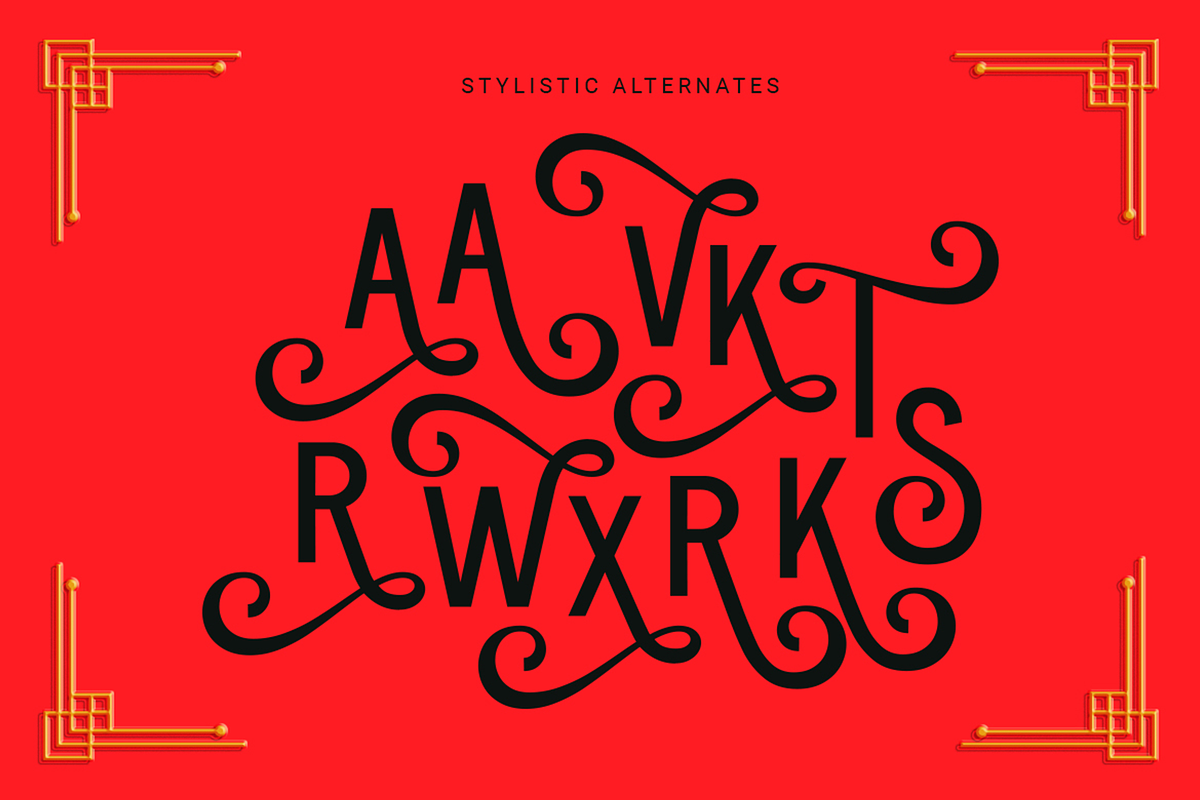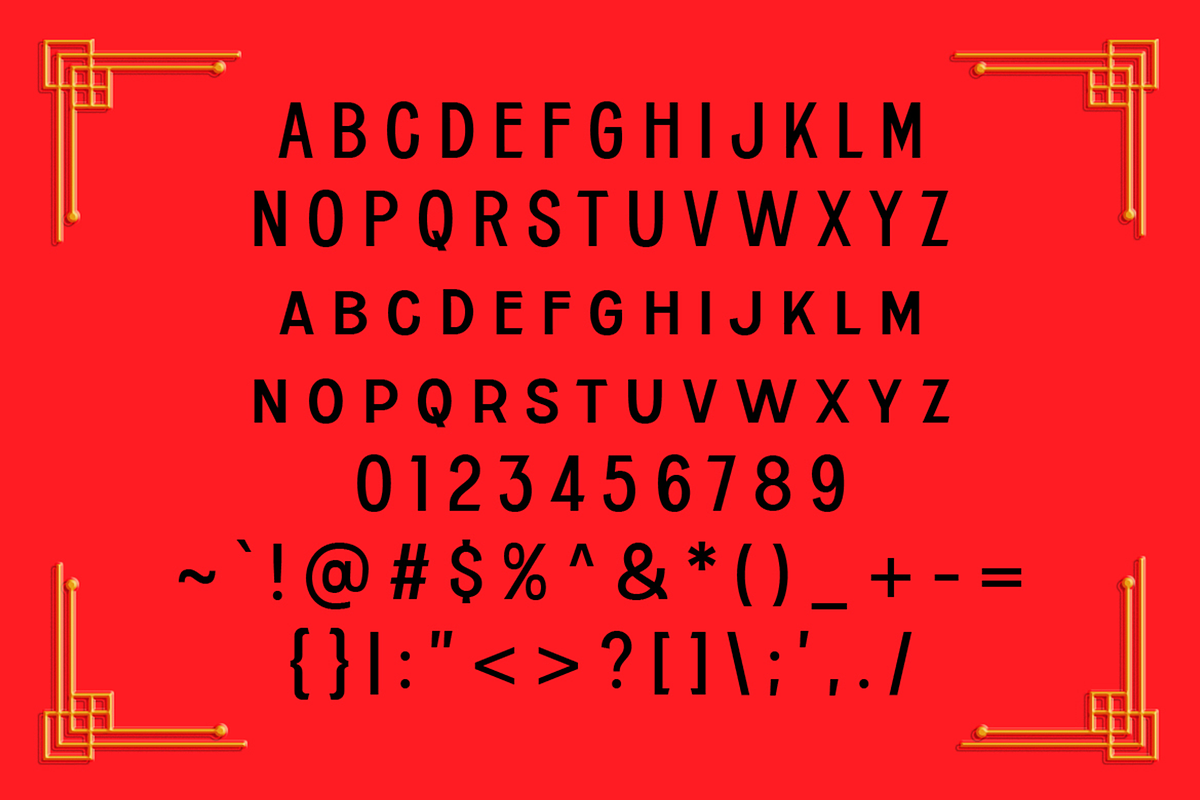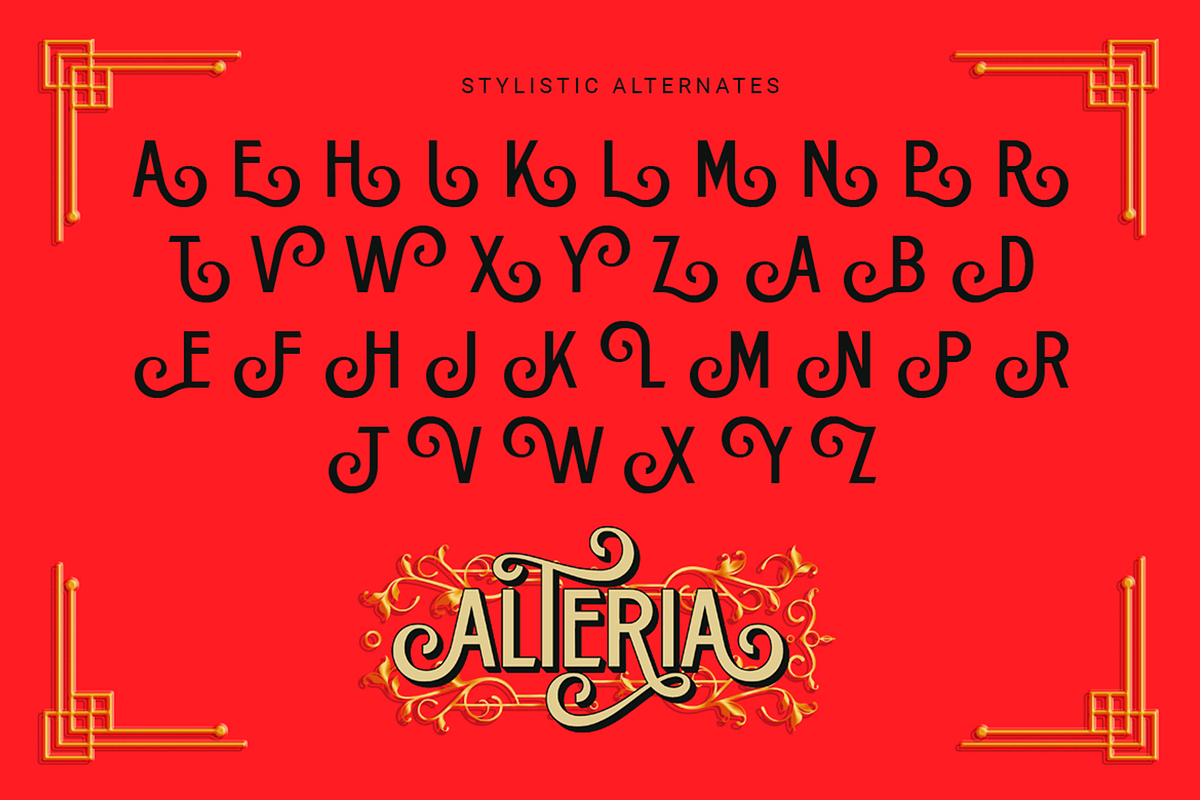
Alteria - Vintage Ornamental Fonts
Alteria is a vintage decorative font. It was inspired by the trend of the victorian era, prints headline, retro signs, newsletters, and advertising back in the 50s.
Perfectly fit for a logo, branding, signage, decor, books, cover, badges and emblems, clothing, apparel, merchandise, movie title, serials, and many more.